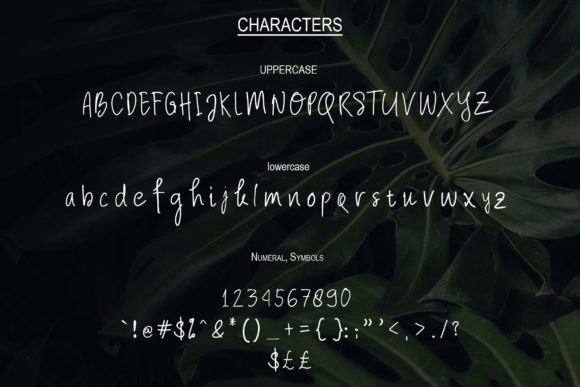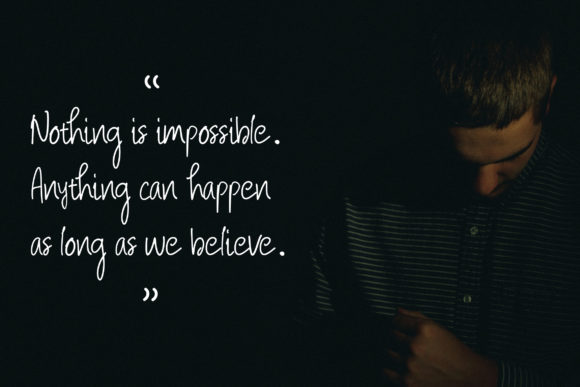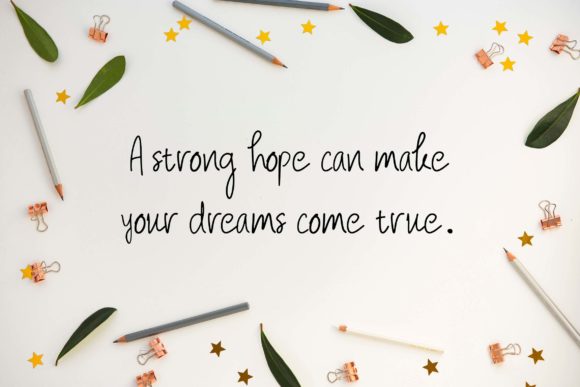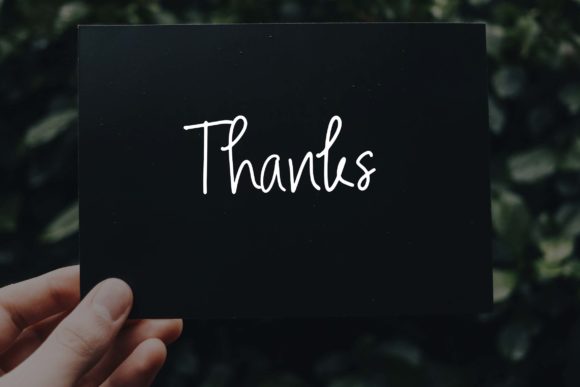
Introduction to Scientia Venit Font
Scientia Venit is a unique script with a simple and sweet look.
Use this typeface to add an authentic and hand-made touch to any design project .
Key Features of Scientia Venit Font